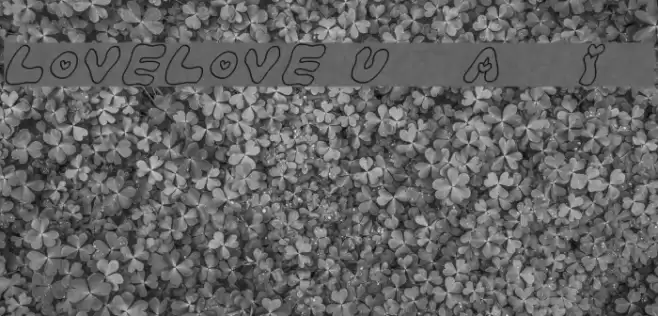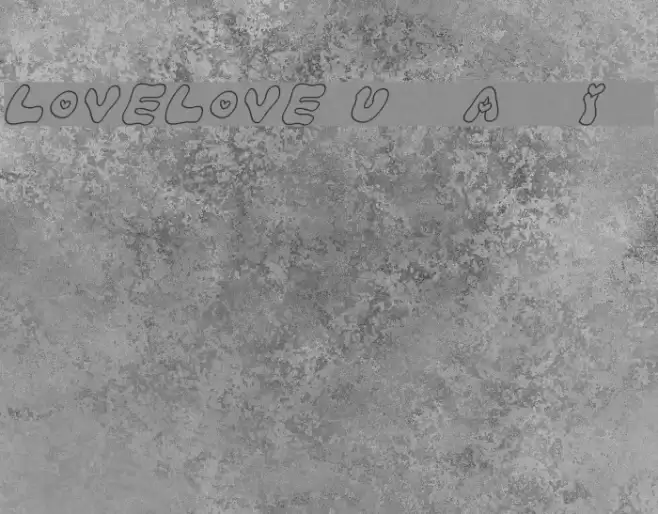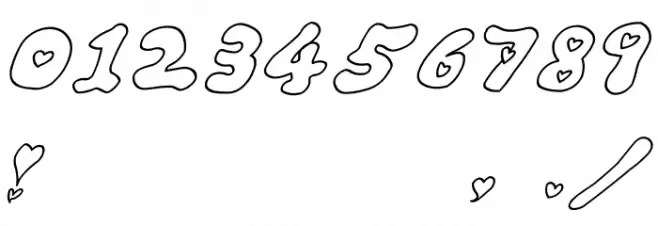
LOVELOVE_UfunAhanIyan Font
LOVELOVE_UfunAhanIyan Description
This playful and whimsical font features a bubbly, hand-drawn style with a unique twist. Each character is outlined with a bold, smooth line, and some letters and numbers incorporate heart shapes, adding a touch of charm and fun. The font maintains a consistent thickness throughout, giving it a cohesive look. Its informal and friendly appearance makes it ideal for projects that aim to convey warmth and creativity. The characters are well-spaced, ensuring readability while maintaining the font's quirky personality.
A playful, hand-drawn font with heart accents and a bubbly style from Uncategorized fonts.
- Proposed Projects: Perfect for children's books, greeting cards, playful branding, and social media graphics.
- Overall Style: Playful, Whimsical